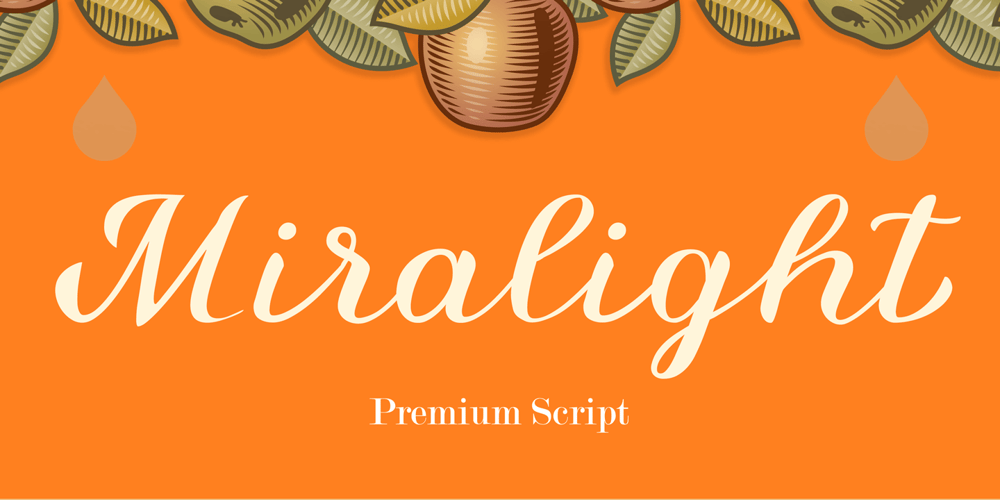
Miralight
Miralight font
Miralight Font Family was designed by Guilhem Greco and published by Herofonts. Miralight contains 1 styles and family package options. Miralight™ is a fresh and casual script. It will give a fresh and trendy touch to your artwork. Modern and stylish, Miralight™ also comes with fancy alternate characters like ending swashes and tales.The font has an extended character set supporting most Central European and Eastern European languages. Enjoy 🙂